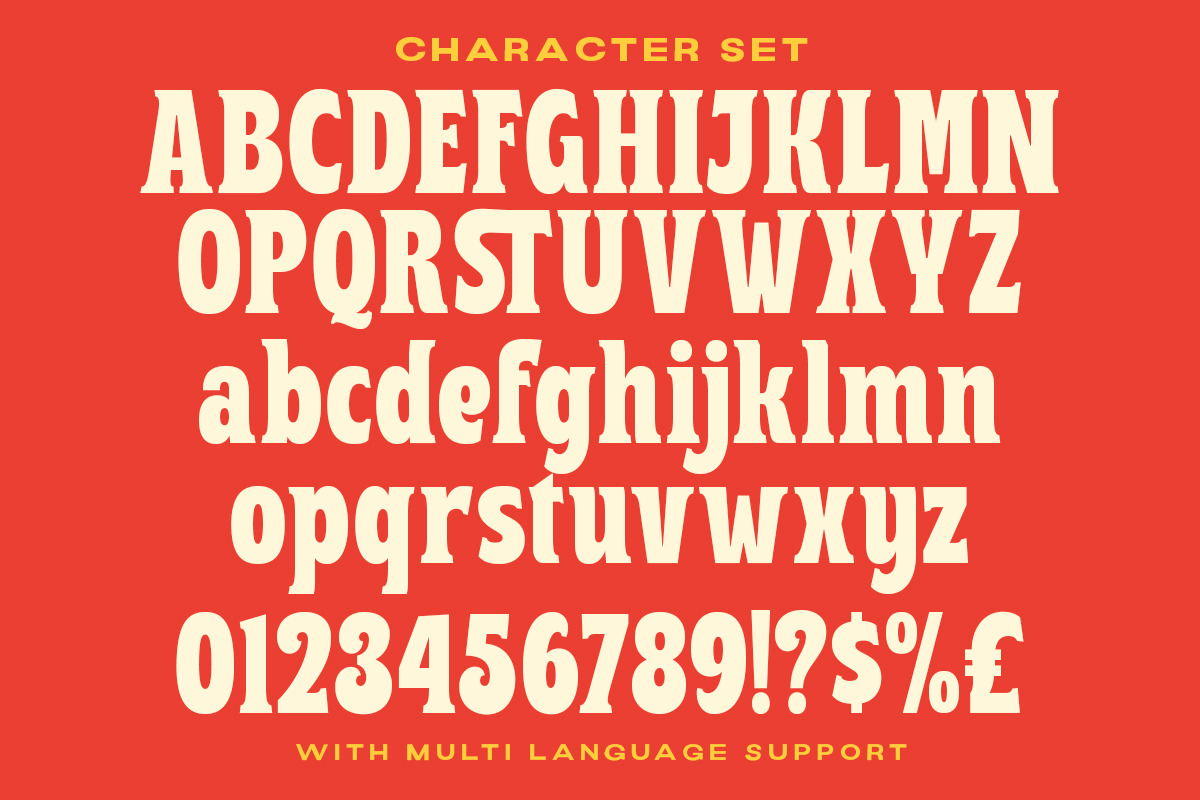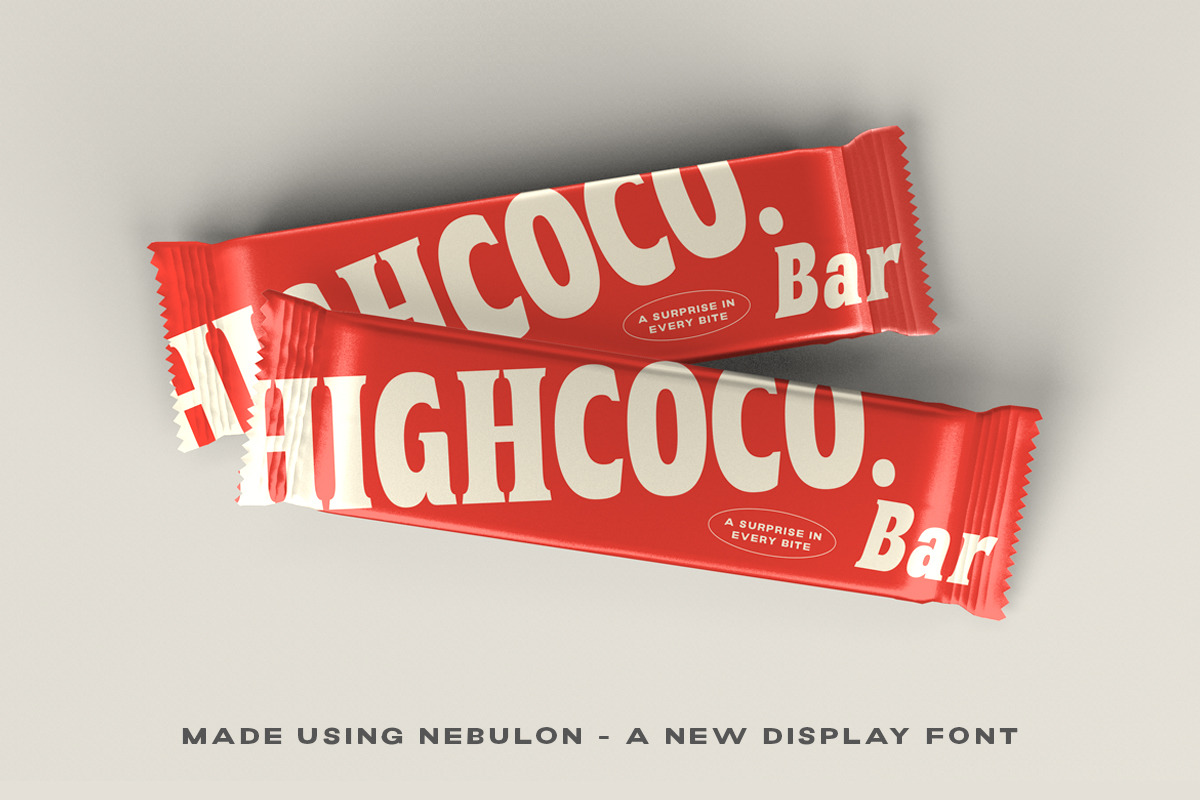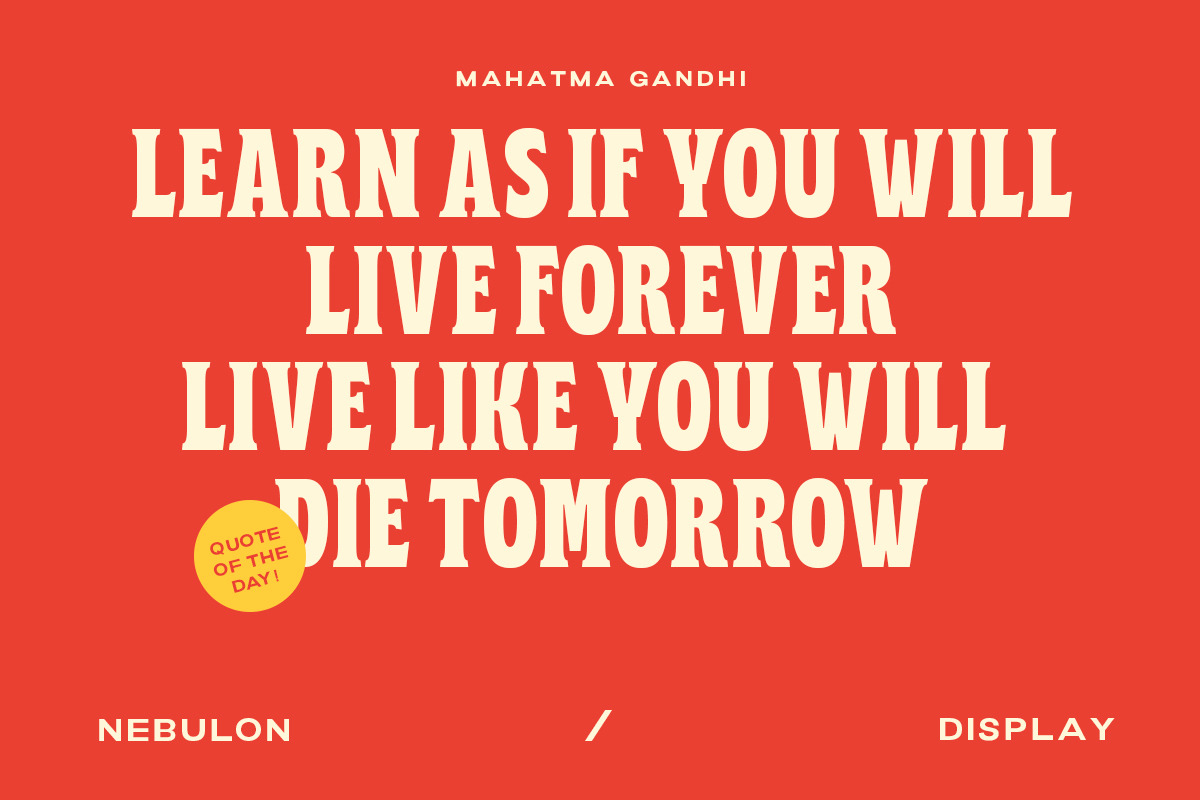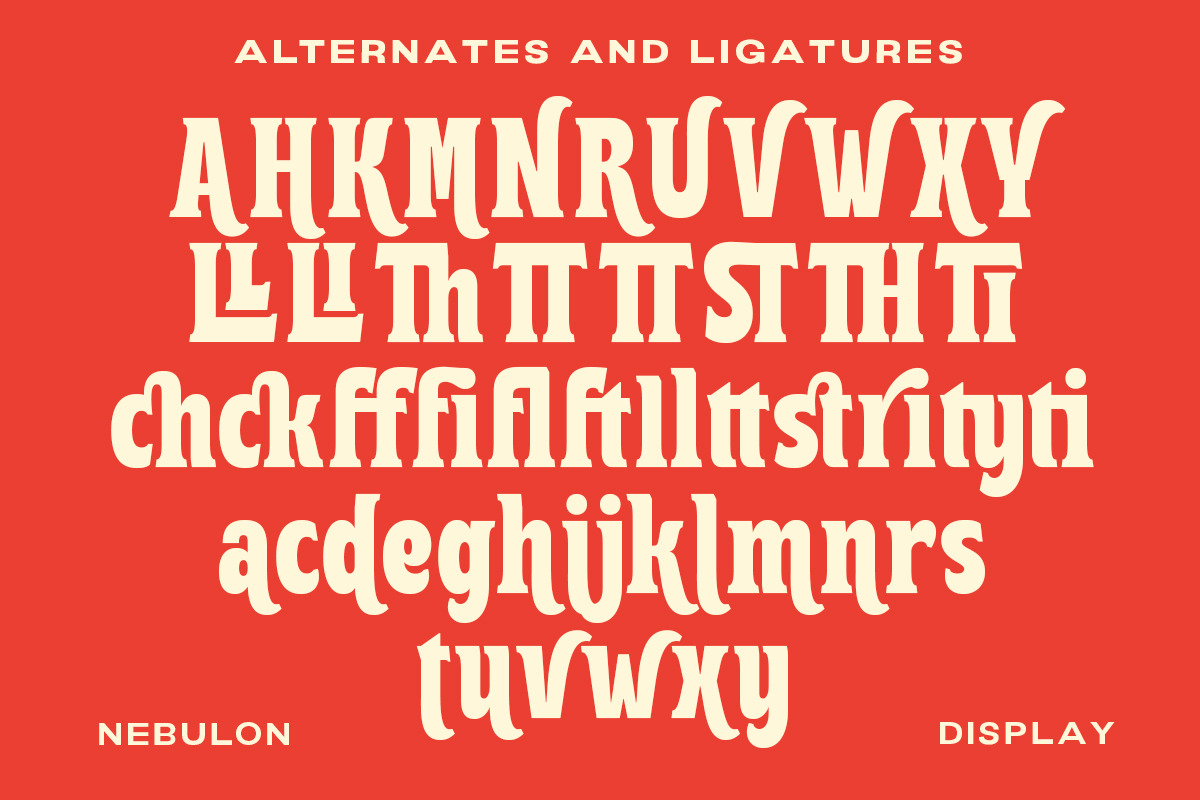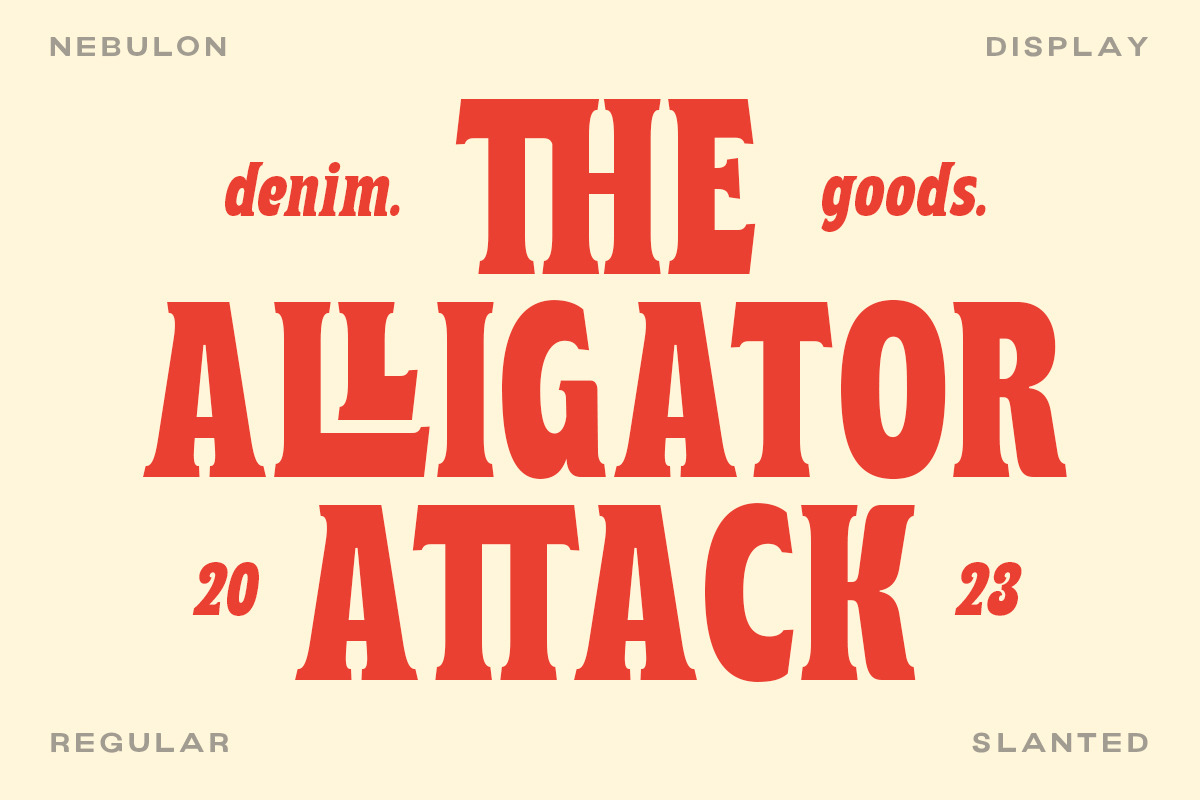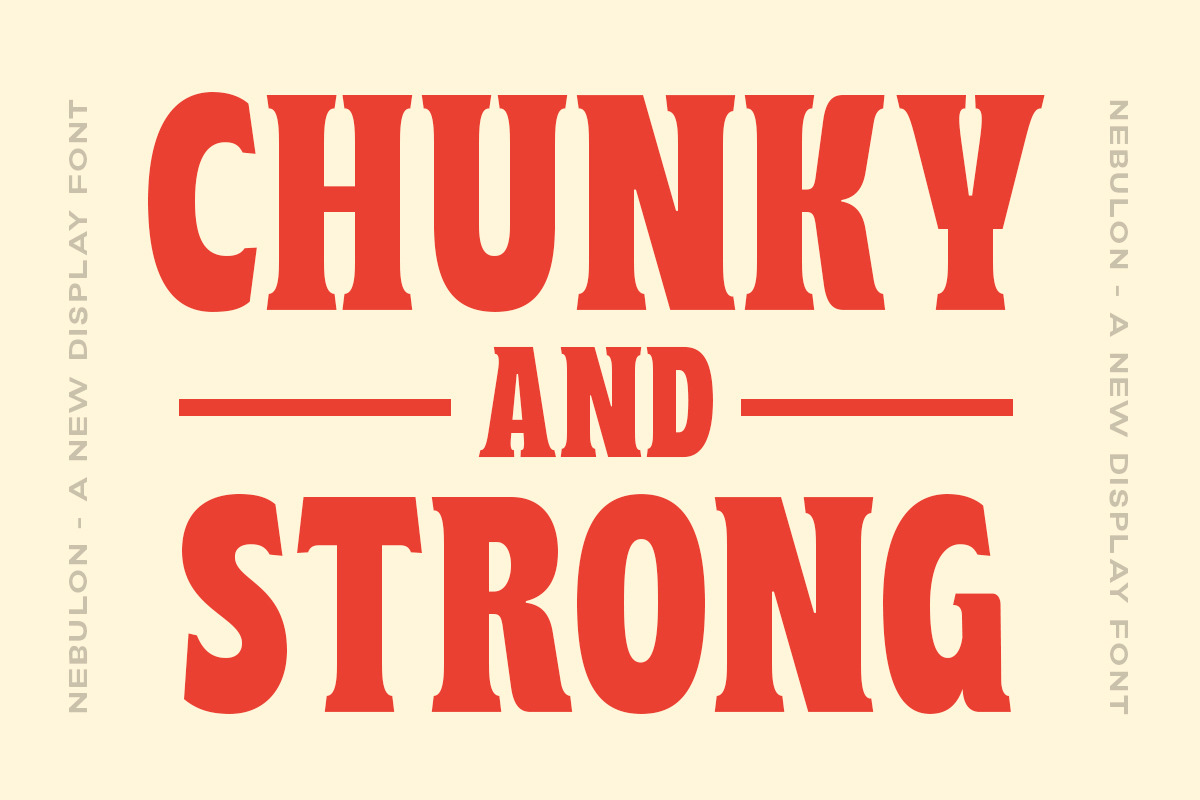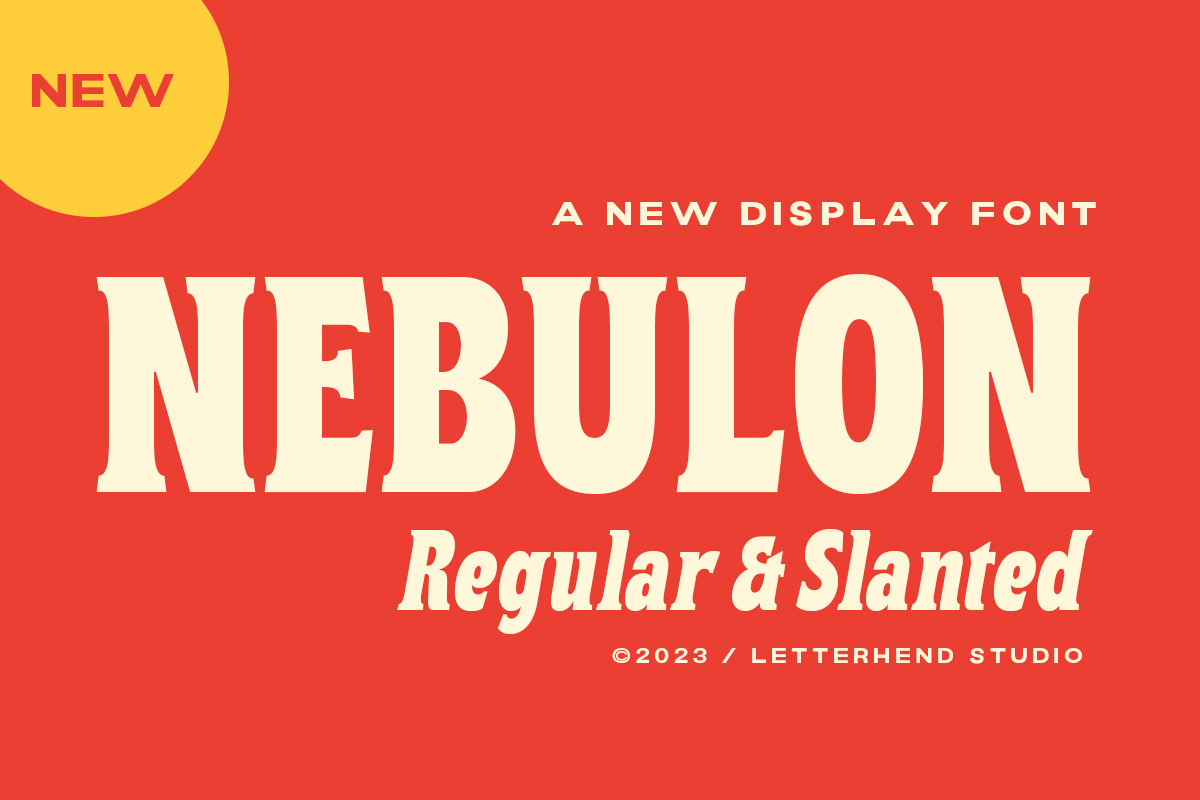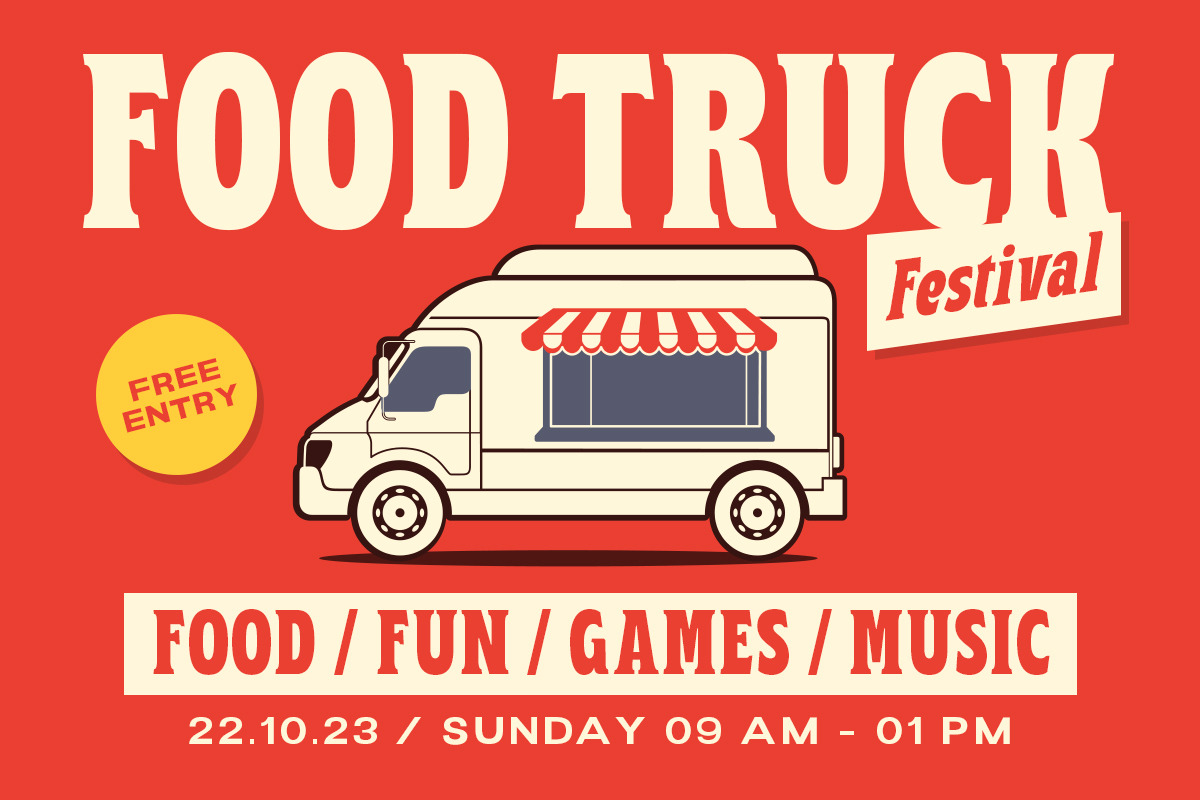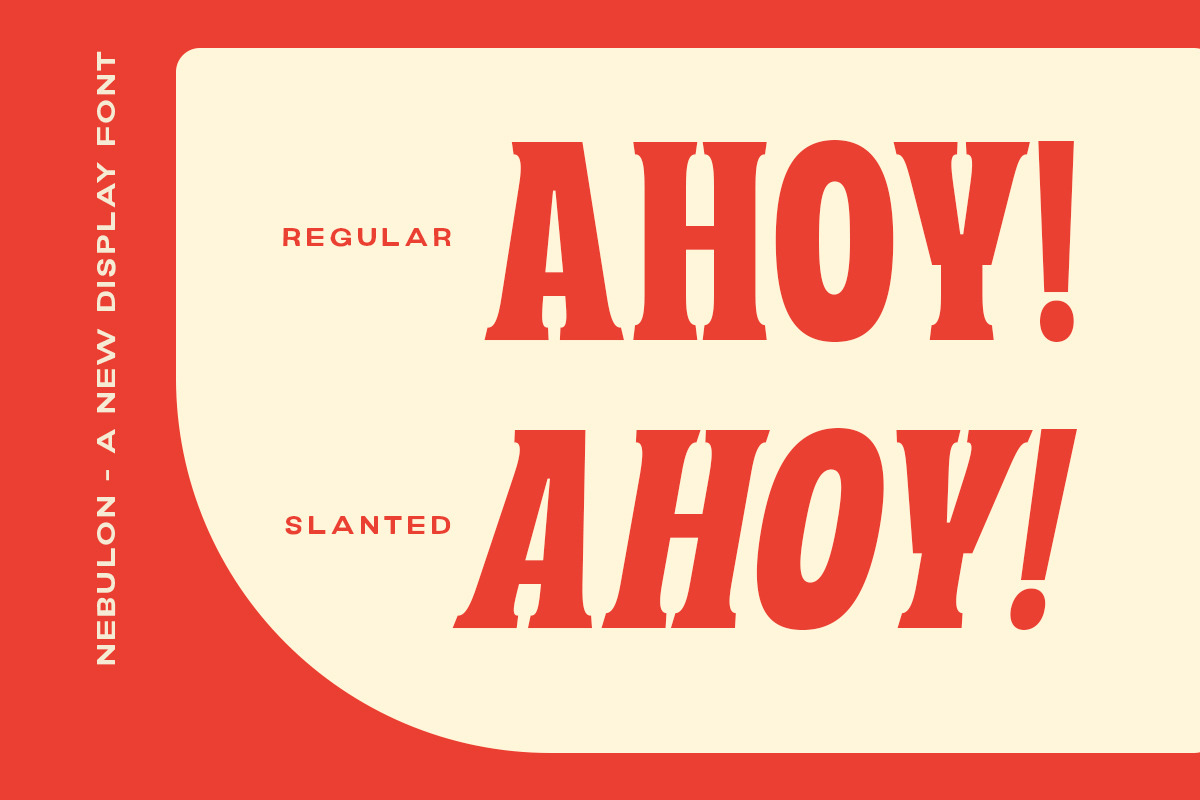
Nebulon - Bold Display Font
Nebulon is a newdisplay font with classic letterform. You can playaround to fit the form using alternate & ligatures. This font perfectly made to be applied especially in logo, and the other various formal forms such as invitations, labels, logos, magazines, books, greeting / wedding cards, packaging, fashion, make up, stationery, novels, labels or any type of advertising purpose.